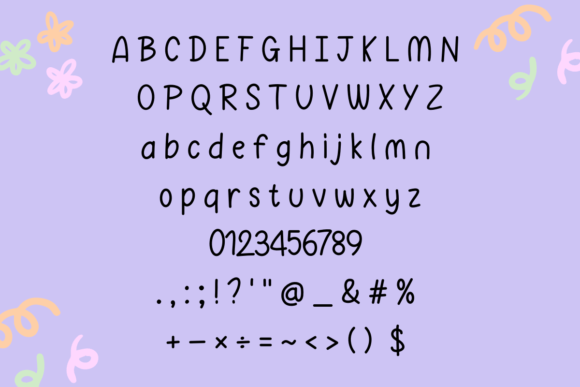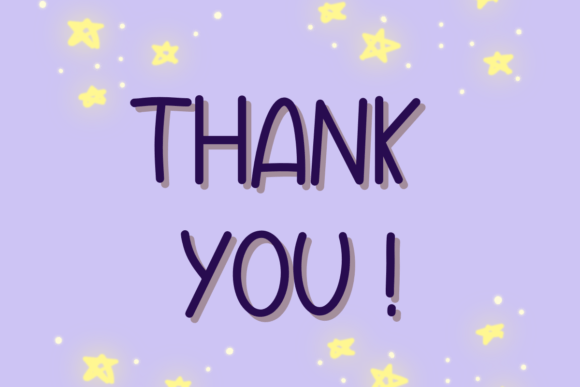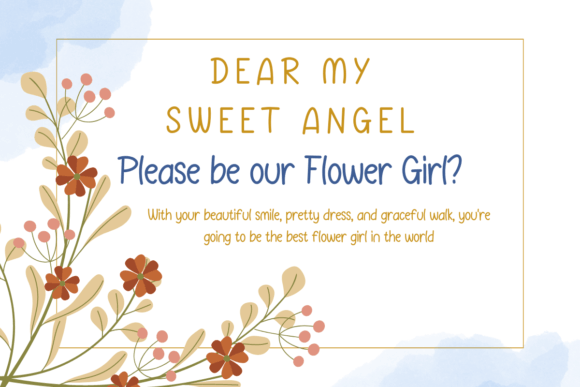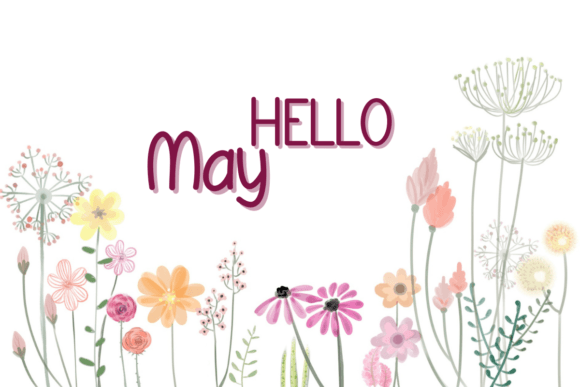
The Francium Font: A Handwritten Gem for Creative Expression
I’ll never forget the moment I stumbled upon the Francium font while working on a handmade card project for a friend’s birthday. I was on a mission to create something special, but my usual go-to fonts just weren’t cutting it. I needed something with a personal touch, something that would make the card feel truly unique. That’s when I discovered Francium, a beautiful handwritten font that instantly captured the warm and fuzzy feeling I was going for.
As I began to experiment with Francium, I realized its incredible versatility. From taking notes and writing diary entries to creating stunning greeting cards, banners, and social media posts, this font proved to be a perfect companion for any creative project. In this article, I’ll dive into the world of Francium, sharing my honest review, practical tips on how to use it, and some exciting alternatives to explore.
- 💫 Unique, handwritten aesthetic that’s perfect for adding a personal touch to any project
- 🎨 Supports OpenType features, glyphs, and stylistic alternates for added creative control
- 📚 Works beautifully across various platforms, including Canva, Adobe Photoshop/Illustrator, and Microsoft Word
- ⚠️ Some users may find the font a tad too casual for formal projects
- ⚠️ Limited availability of certain special characters and diacritics
Exploring Alternatives: Similar Fonts to Francium
If you love Francium, you might also enjoy these similar fonts:
- Kaitlynn: A whimsical, handwritten font with a playful personality. Use it for children’s projects, party invitations, or social media graphics.
- Alex Brush: A beautiful, elegant script font perfect for more formal projects, such as wedding invitations or luxury branding.
- Pacifico: A stunning, modern script font ideal for creative entrepreneurs, bloggers, or social media influencers.
- Great Vibes: A fun, energetic handwritten font suitable for posters, flyers, or any project that needs a lively touch.
The Story Behind Francium: Designer Inspiration
While the true story behind Francium’s creation remains a mystery, it’s easy to imagine a designer with a passion for handwriting and lettering crafting this beautiful font. Perhaps they drew inspiration from vintage letters, street art, or the imperfections of handwritten notes. Whatever the story, Francium’s unique charm has captured the hearts of designers and crafters worldwide.
Q: Is Francium suitable for body text?
A: While Francium is highly legible, its handwritten nature makes it better suited for headings, titles, or short paragraphs. For longer body text, a more traditional font might be a better choice.
Q: Does Francium support non-English characters?
A: Francium’s character set might be limited, so it’s essential to check if it supports the specific characters you need. You can usually find this information on the font’s product page or by contacting the designer directly.